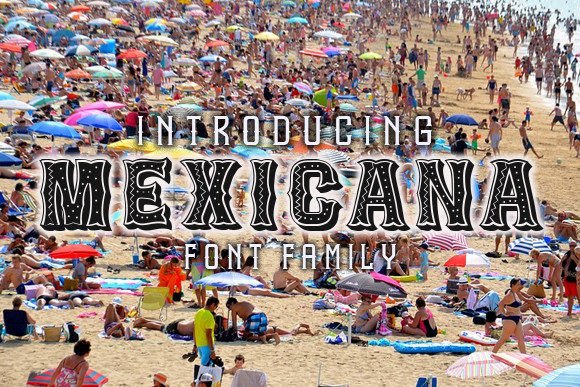
Introducing Mexicana Font, the epitome of modern elegance and Mexican charm. Crafted with meticulous attention to detail by the talented designer vladimirnikolic, this extraordinary display font is the perfect choice for all your print on demand needs. Whether you're designing captivating posters, eye-catching flyers, or unforgettable party invites, Mexicana Font has got you covered!
Embrace the vibrant spirit of Mexico with Mexicana Font's captivating and unique style. Its graceful curves and bold characters breathe life into your designs, instantly catching the viewer's attention. Let your creativity soar as you effortlessly incorporate this font into your projects, adding a touch of authenticity and cultural flair.
With Mexicana Font, each letter is a work of art in itself, meticulously crafted to perfection. Its carefully chosen typography evokes a sense of tradition and elegance, making it ideal for a wide range of applications. Whether you're promoting a fiesta, creating stunning branding materials, or designing captivating merchandise, Mexicana Font will elevate your creations to new heights.
Captivate your audience and leave a lasting impression with Mexicana Font's versatility. Its bold presence demands attention and ensures your message is heard loud and clear. Whether you're aiming for a bold and impactful statement or a more subtle and refined approach, Mexicana Font adapts effortlessly to suit your creative vision.
Stand out from the crowd and make a statement with Mexicana Font. Its captivating allure and unique Mexican-inspired design will set you apart in a sea of mediocrity. Leave a lasting impression on your audience and watch as your creations come to life with this remarkable font.
Incorporate Mexicana Font into your collection today and discover the endless possibilities it holds. Let its modern charm and Mexican heritage elevate your designs, leaving a lasting impact on anyone who lays eyes on them. Don't settle for ordinary fonts when you can have extraordinary. Mexicana Font: the best choice for all your print on demand needs.